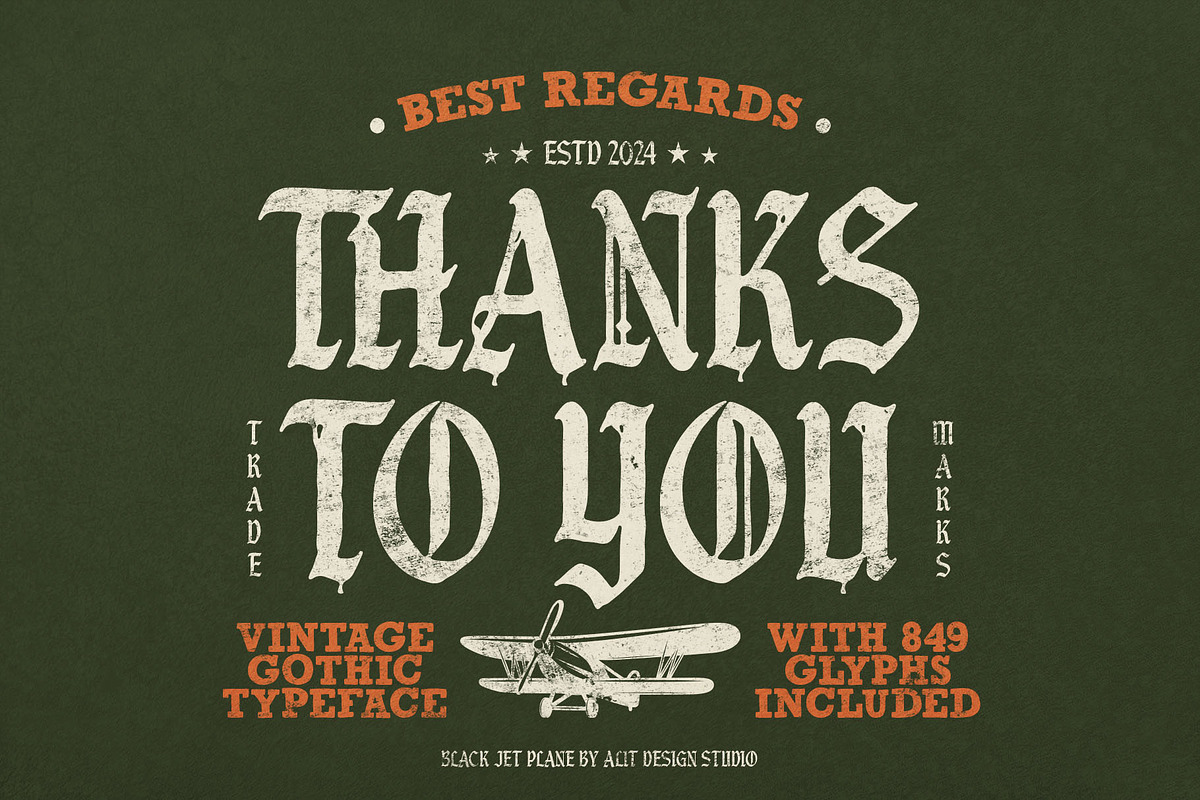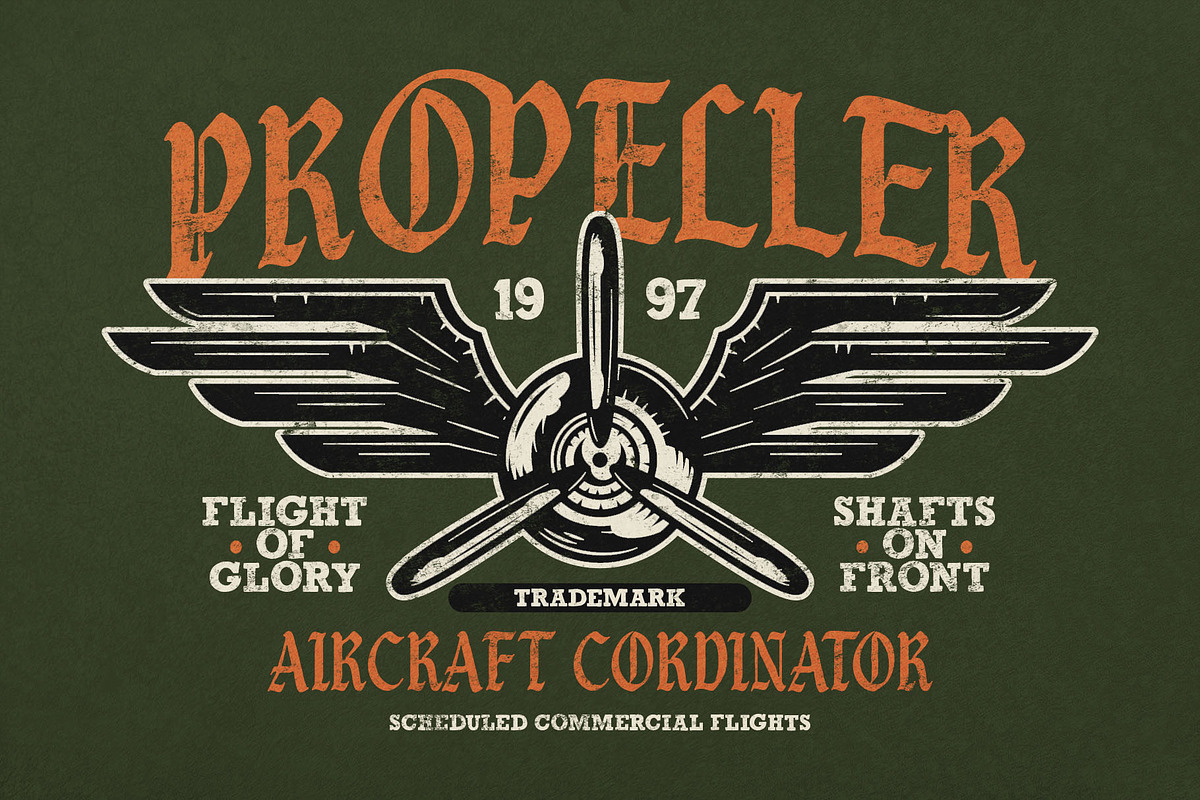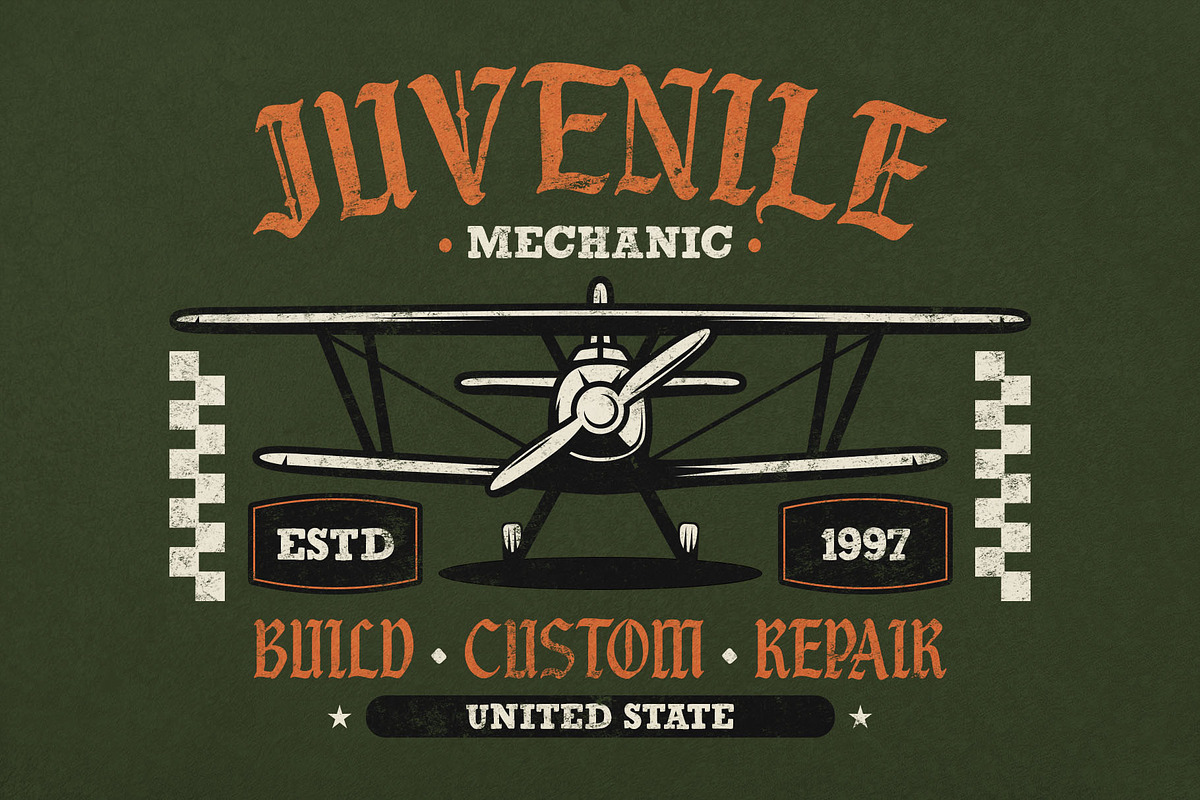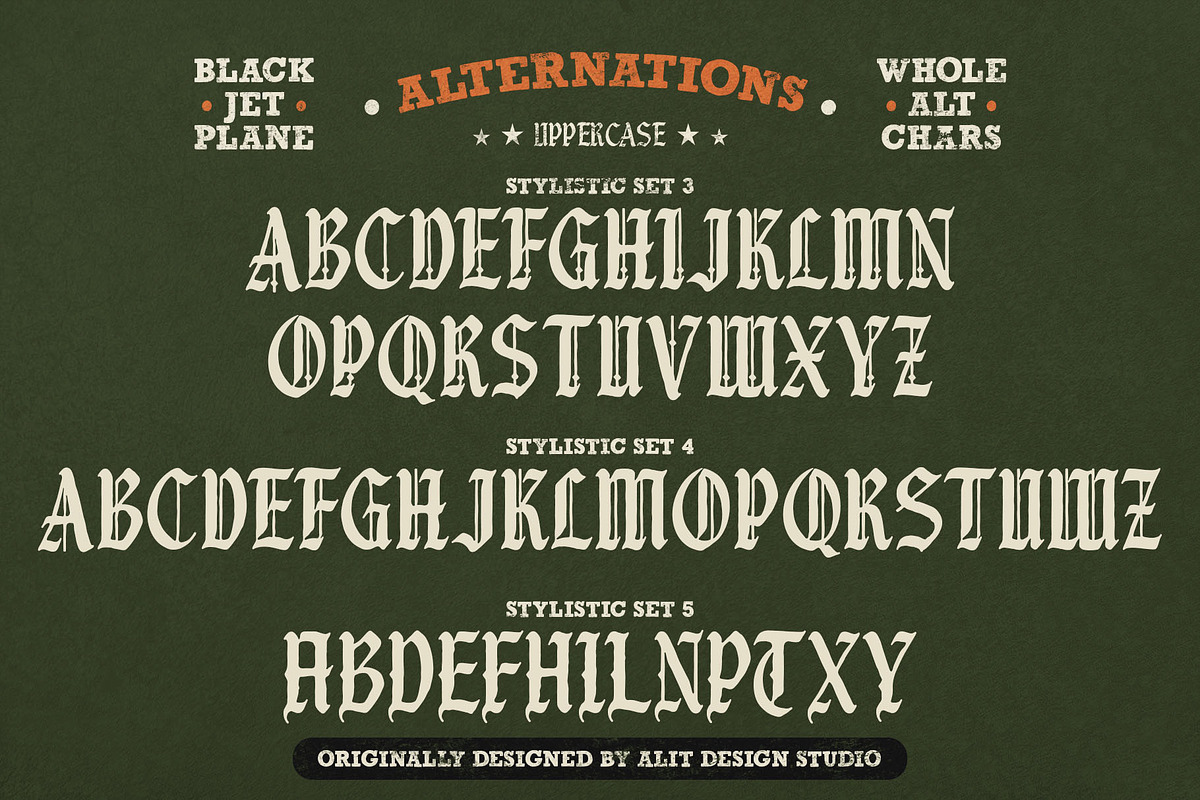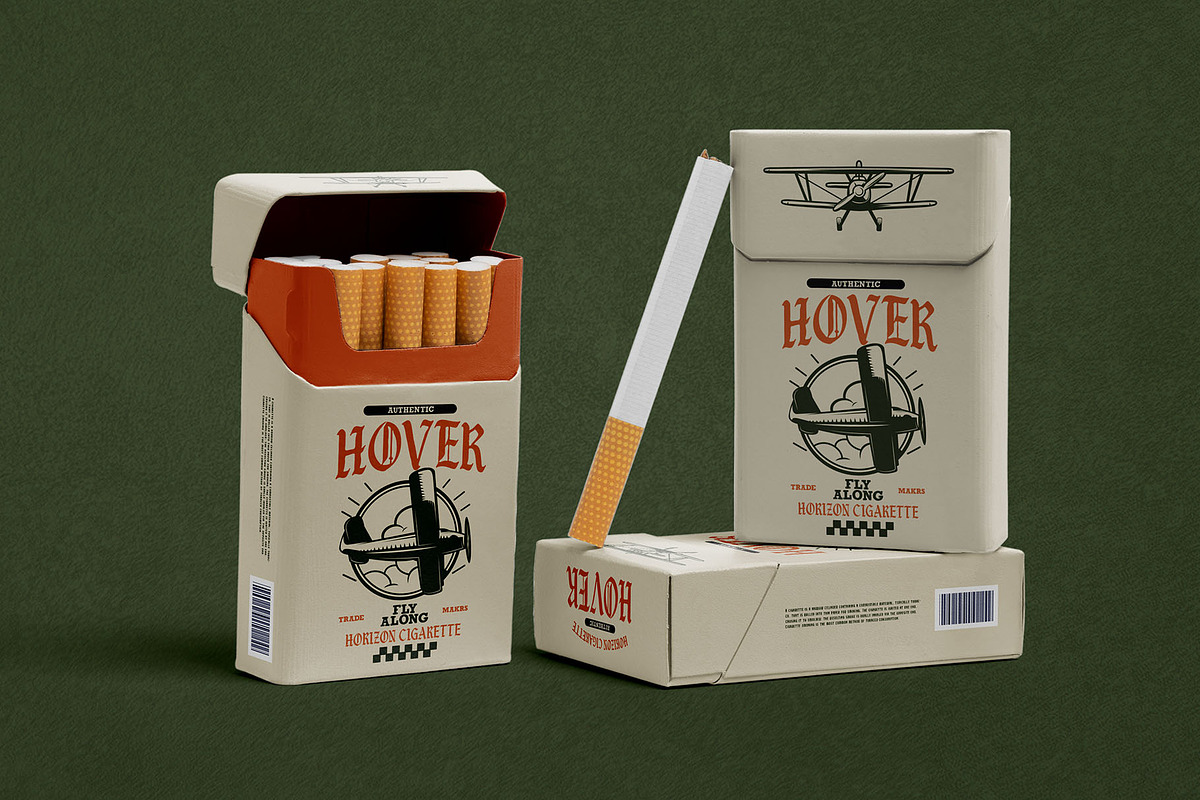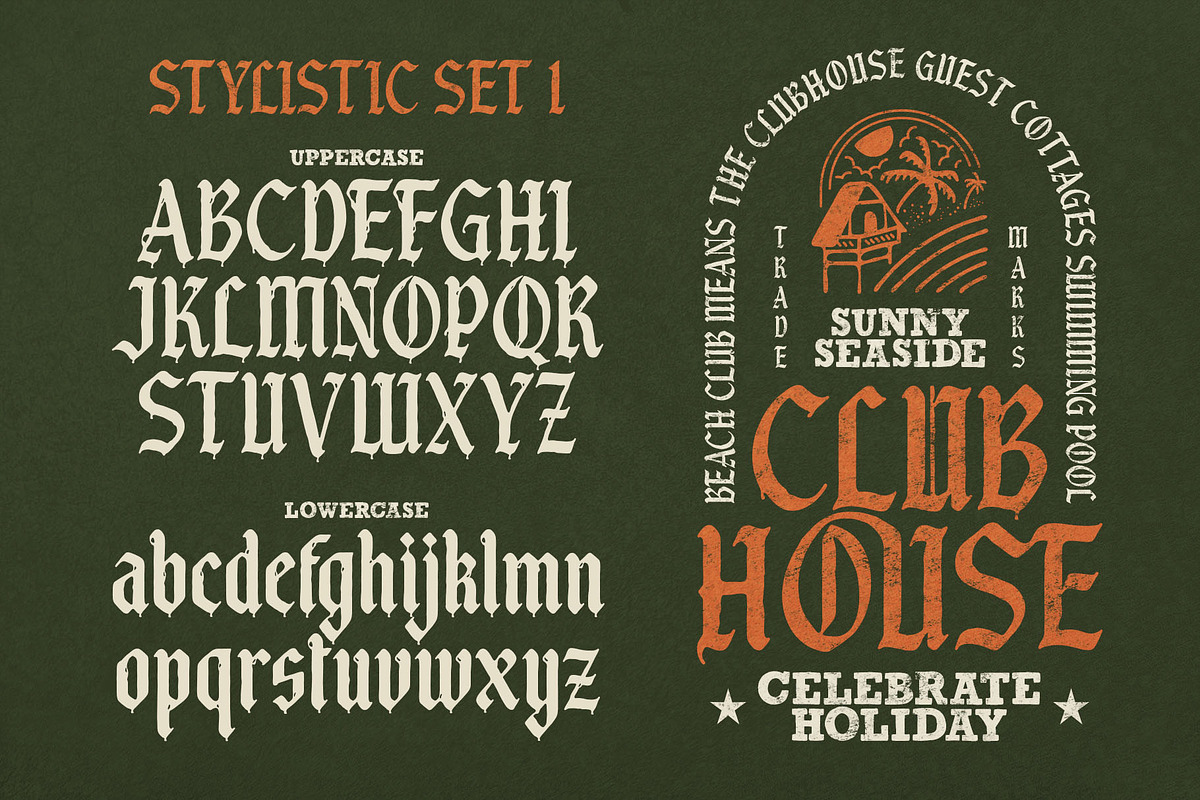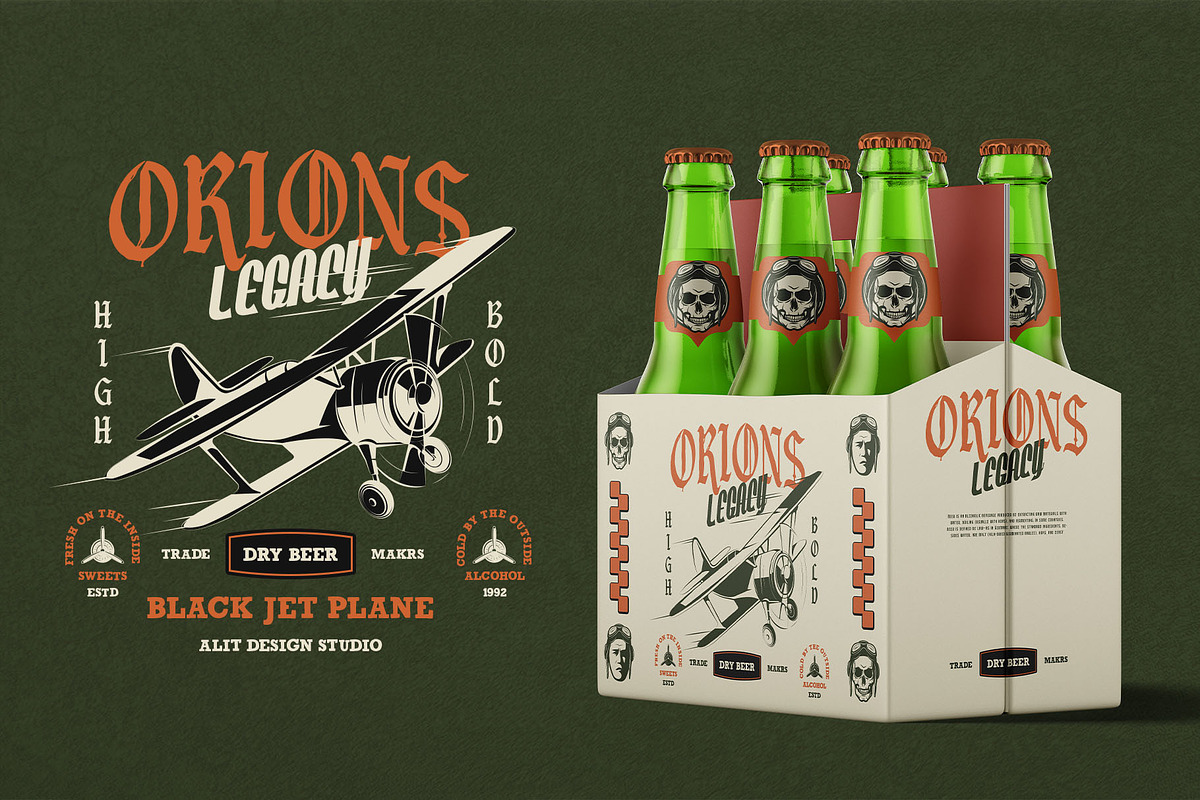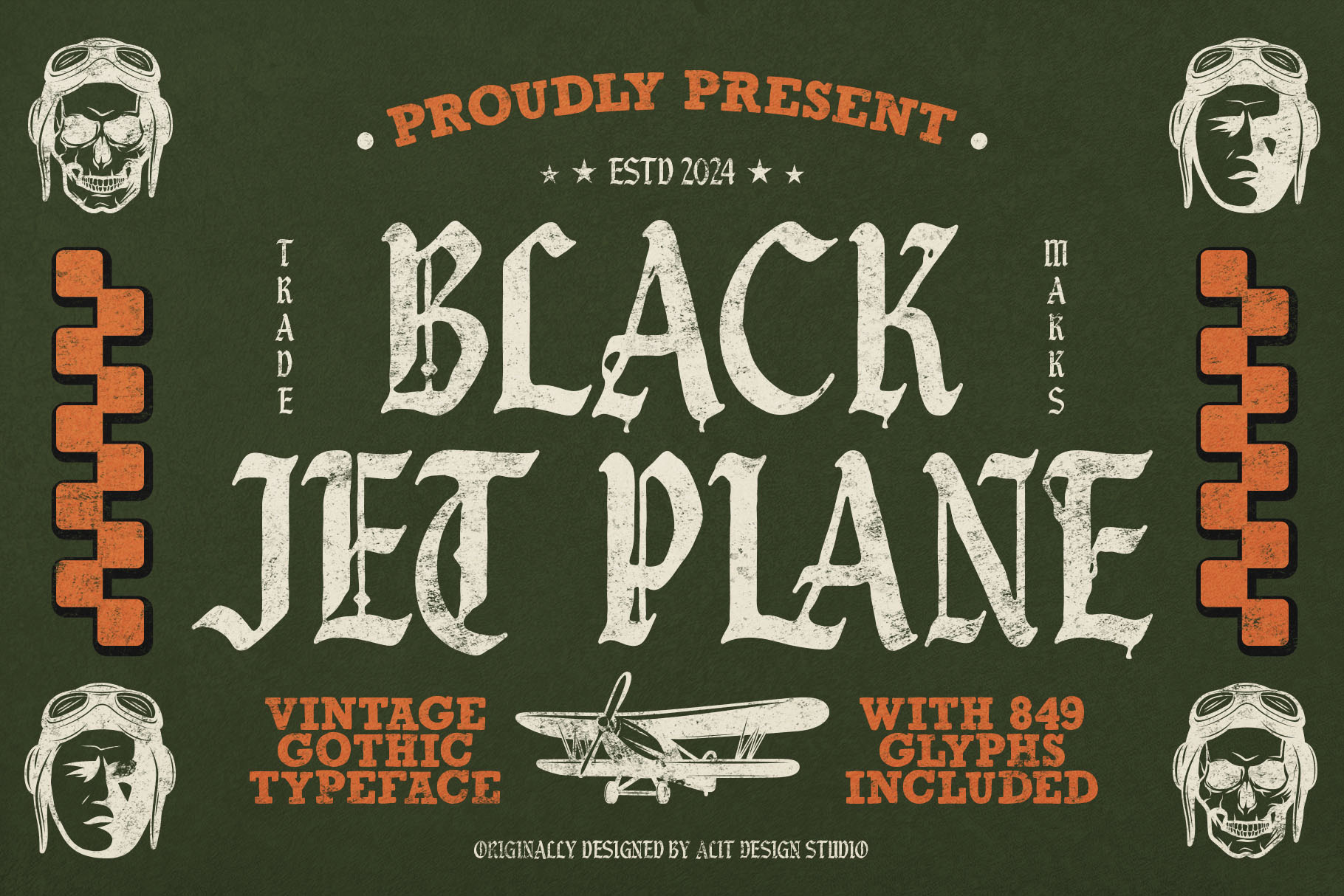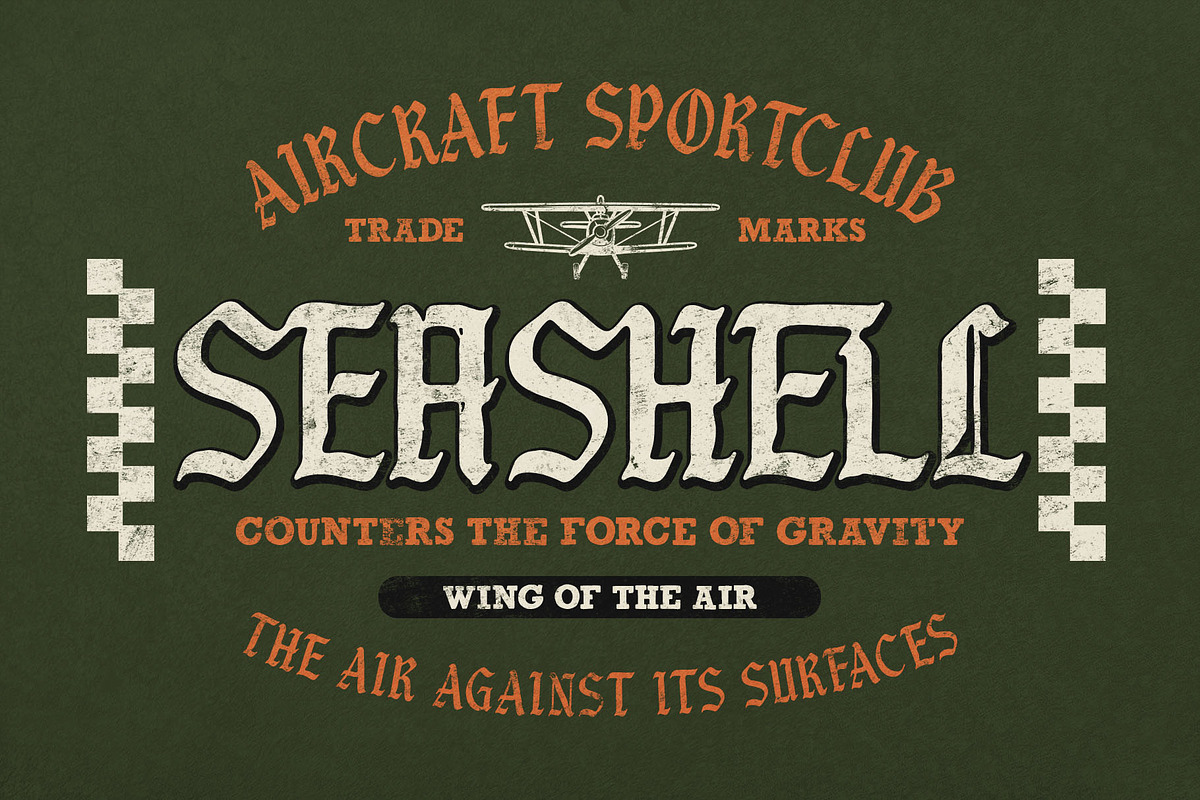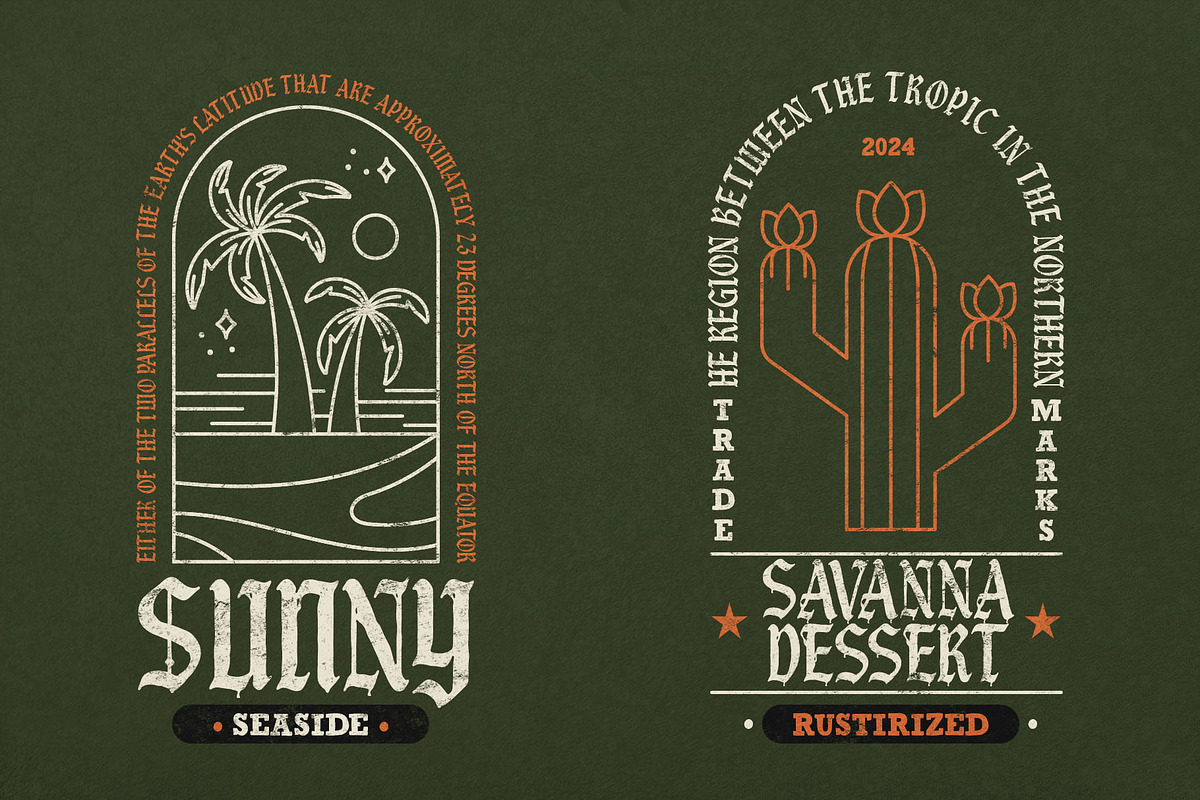
Black Jet Plane Typeface
Elevate your designs with the Black Jet Plane Typeface, a bold and powerful blackletter font that embodies the rugged charm of vintage aesthetics. Crafted with precision and character, this typeface is perfect for creating striking headlines, logos, posters, and more.
- Authentic Rough Vintage Style: Inspired by traditional blackletter fonts, Black Jet Plane brings a weathered, timeworn feel to your projects, making it ideal for designs that demand a bold, historical touch.
- Extensive Character Set: With a whopping 849 characters, this typeface offers endless possibilities. It includes a wide range of alternates and ligatures, allowing for unique and custom typographic compositions.
- Multilingual Support: No matter your audience, Black Jet Plane has you covered. It includes extensive multilingual support, ensuring your message resonates across languages.
Bring the bold, rough, and vintage spirit of Black Jet Plane into your next design project and watch your creations take flight!